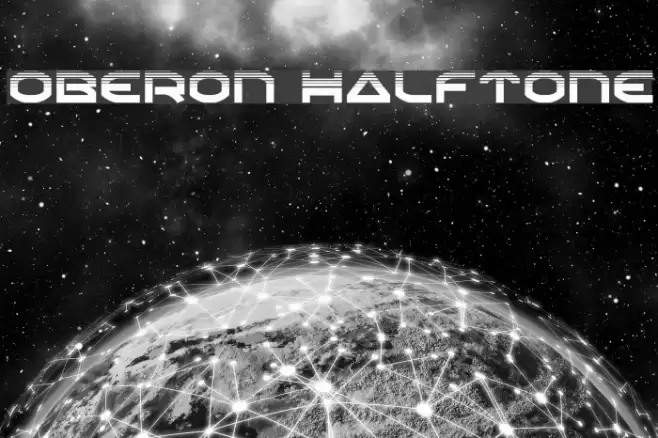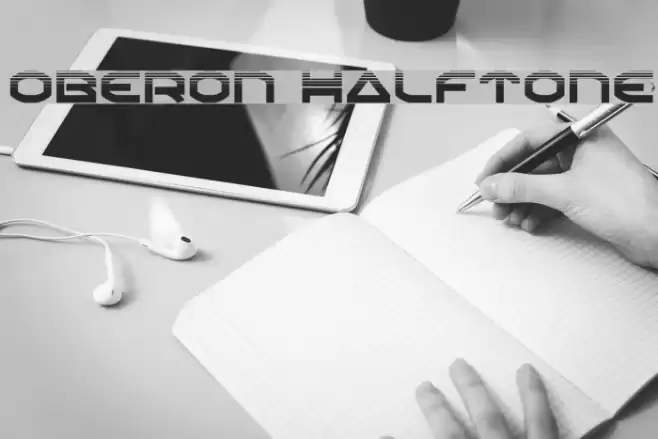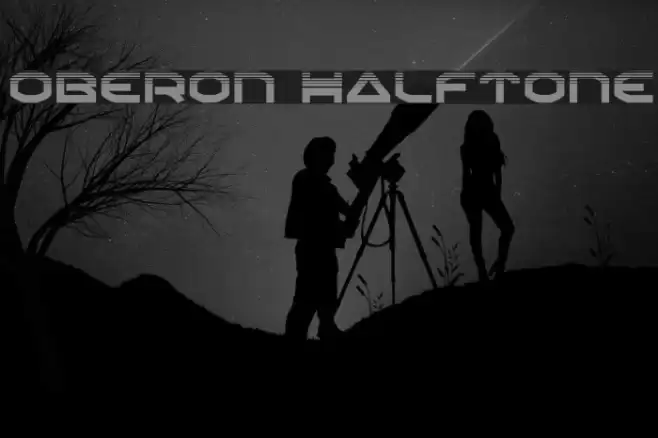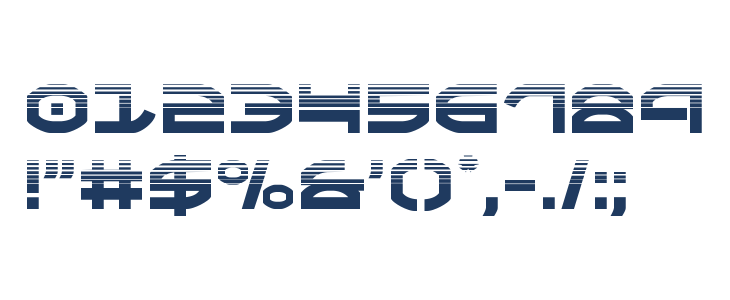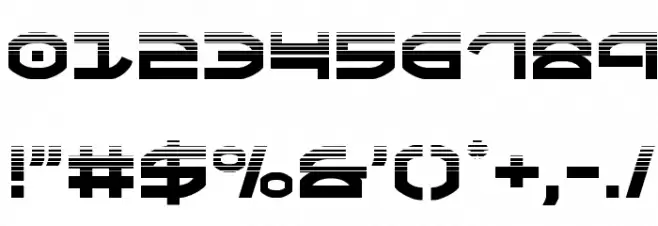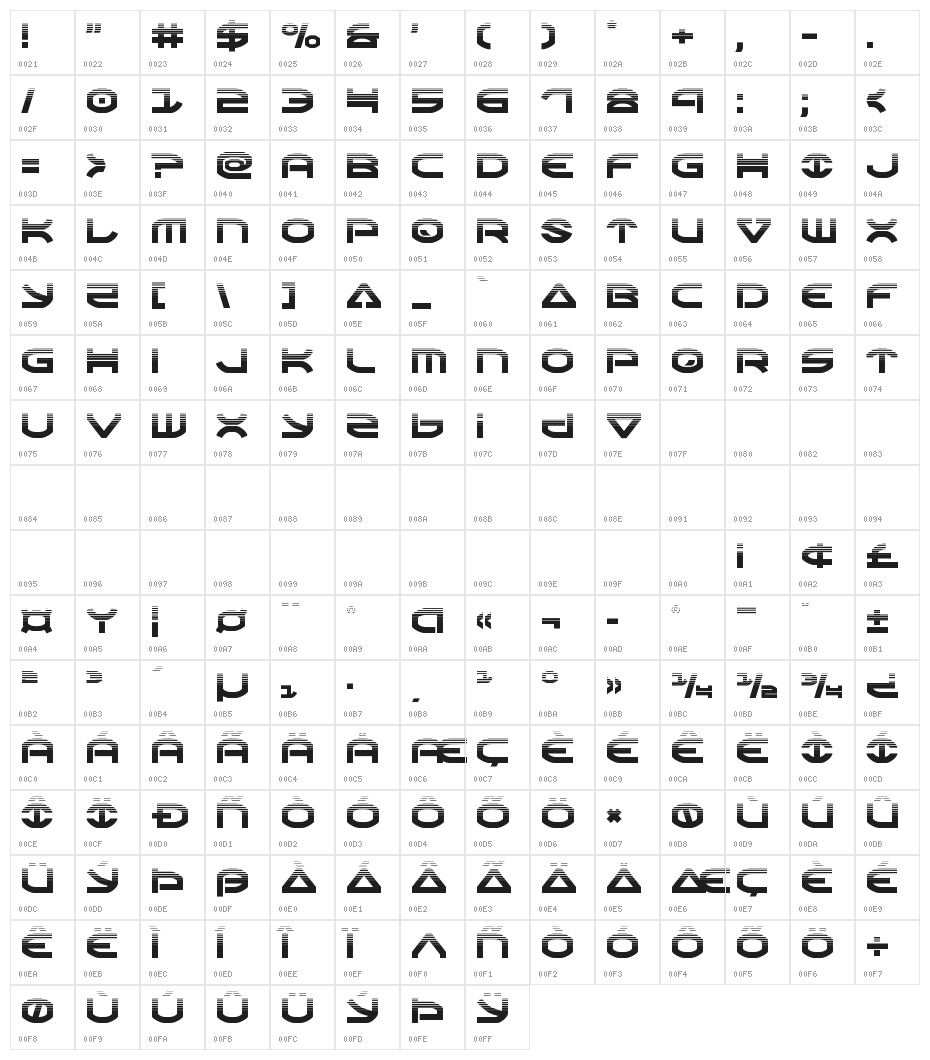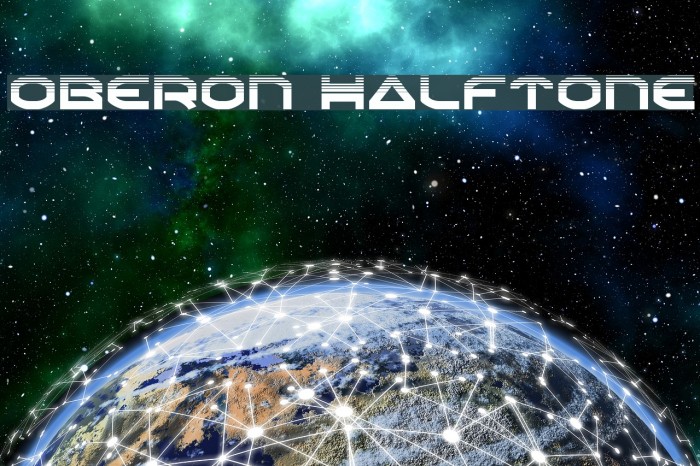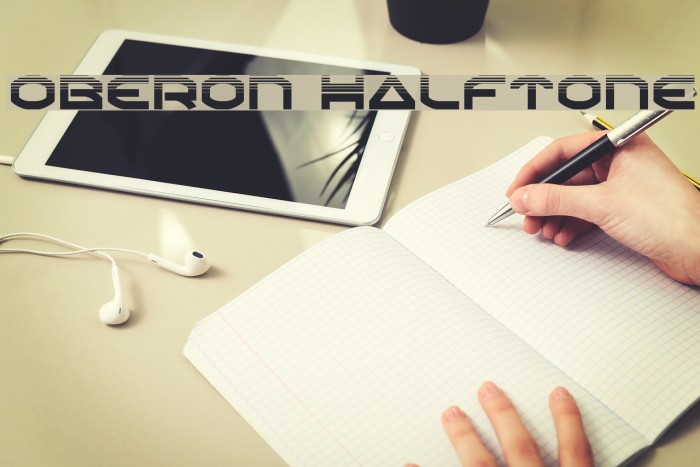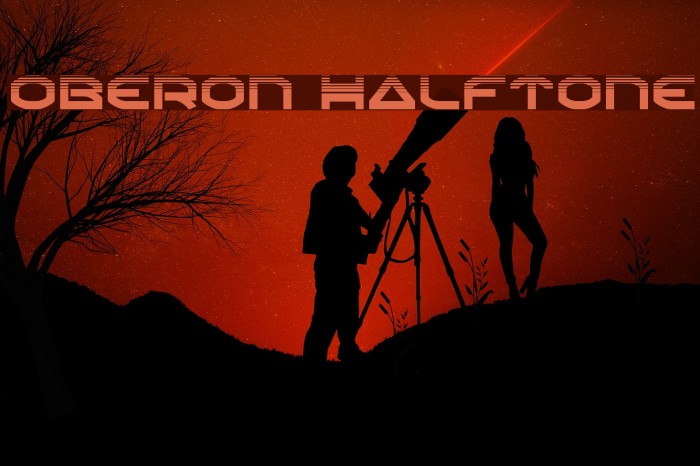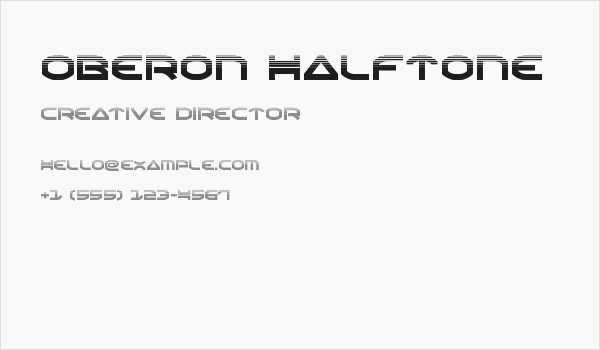
Oberon Halftone Font
Oberon Halftone Description
This font features a unique halftone effect, giving it a futuristic and digital appearance. The characters are bold and geometric, with horizontal lines creating a sense of movement and depth. Each letter is distinct, with angular cuts and a consistent pattern that runs through the entire set. The numbers and special characters follow the same design principles, ensuring a cohesive look. This font is ideal for projects that require a modern and edgy aesthetic, making it suitable for technology-related themes or creative branding.
A bold, geometric font with a halftone effect, perfect for modern and digital themes from Uncategorized fonts.
- Proposed Projects: Ideal for tech branding, digital artwork, futuristic posters, and innovative product packaging.